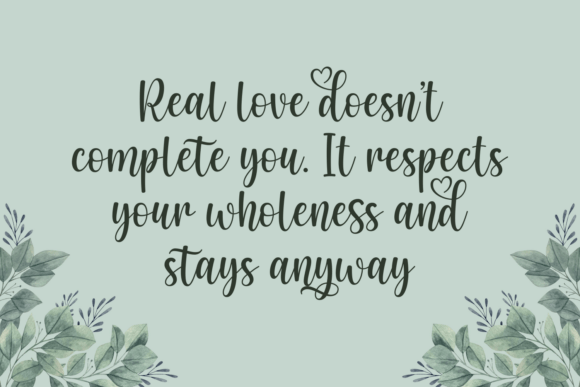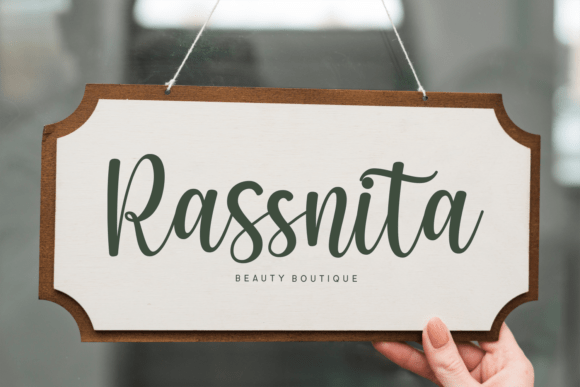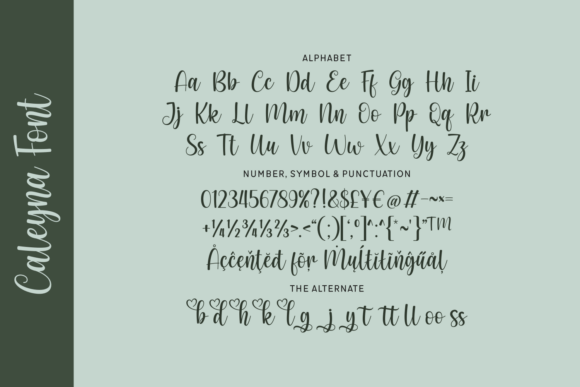
Caleyna Font
Caleyna is a graceful script font that enchants with its flowing strokes, heart-shaped swash, and soft hand-lettered style. Designed to bring warmth and elegance to your projects, Caleyna is perfect for wedding invitations, branding for florists or boutiques, romantic quotes, and stationery design. Its balanced curves and playful touches make every word feel handwritten with love—ideal for adding a delicate, feminine flair to your creations.